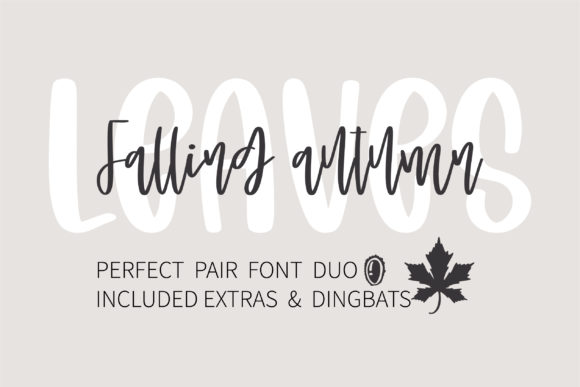
In a world teeming with digital monotony, Falling Autumn Leaves Font arrives as a breath of fresh air, a script font that captures the essence of nature's artistry. Its lines, like the gentle sway of autumn leaves, intertwine with effortless grace, beckoning you to embark on a creative journey beyond compare. Crafted by the skilled hands of BitongType, this font is not just a collection of characters; it's an invitation to unleash your imagination and paint your words with vibrant hues.
As you immerse yourself in the Falling Autumn Leaves Font, you'll discover a treasure trove of possibilities. Envision your wedding invitations, adorned with the delicate touch of this font, as they carry the promise of a love story waiting to be told. Each letter dances across the page, carrying with it the whispers of a bygone era, whispering tales of romance and timeless elegance.
But the allure of Falling Autumn Leaves Font extends far beyond the realm of weddings. Its versatility knows no bounds, lending its charm to an array of creative endeavors. Picture your social media posts, transformed into captivating works of art, as the words you share take on a new life, dancing and twirling before the eyes of your captivated audience.
With Falling Autumn Leaves Font, you possess the power to elevate your stationary art to breathtaking heights. Its graceful curves and sweeping lines lend an air of sophistication to your creations, turning each piece into a masterpiece that speaks volumes about your artistic prowess.
So, let your imagination take flight and embrace the enchanting beauty of Falling Autumn Leaves Font. Allow its ethereal essence to guide your creative endeavors, as you weave captivating stories and craft visual masterpieces that leave an indelible mark on the hearts of all who behold them.